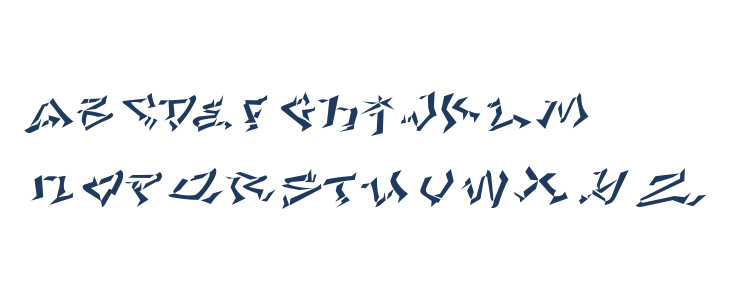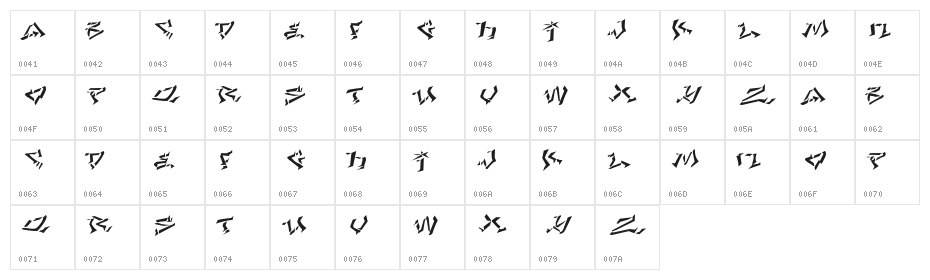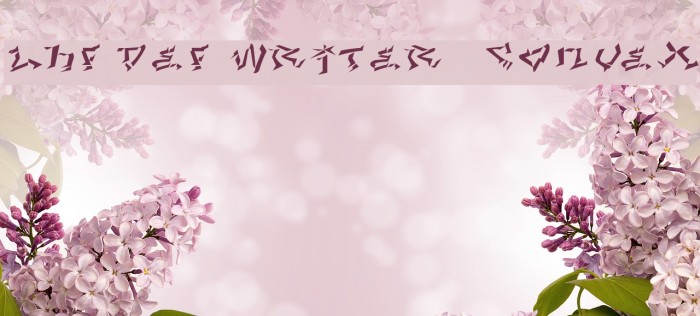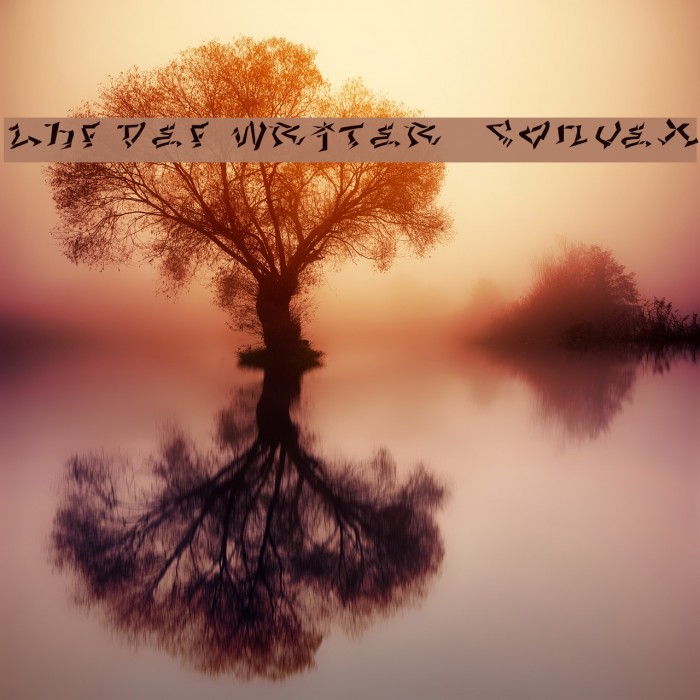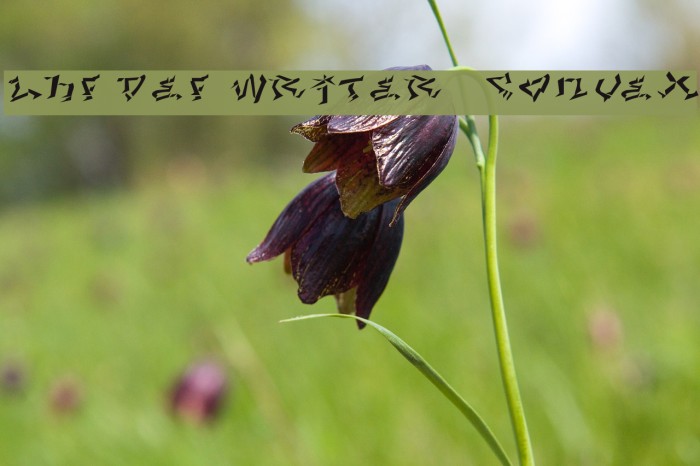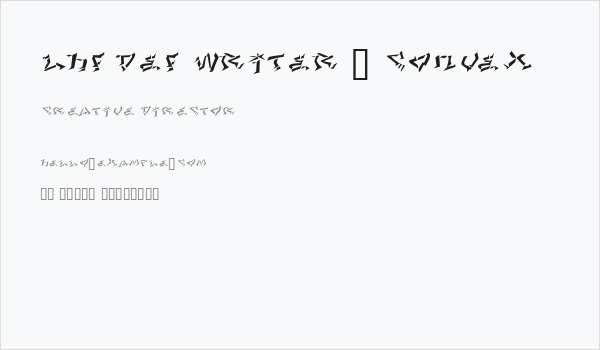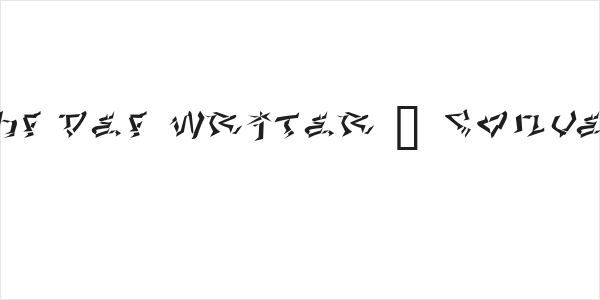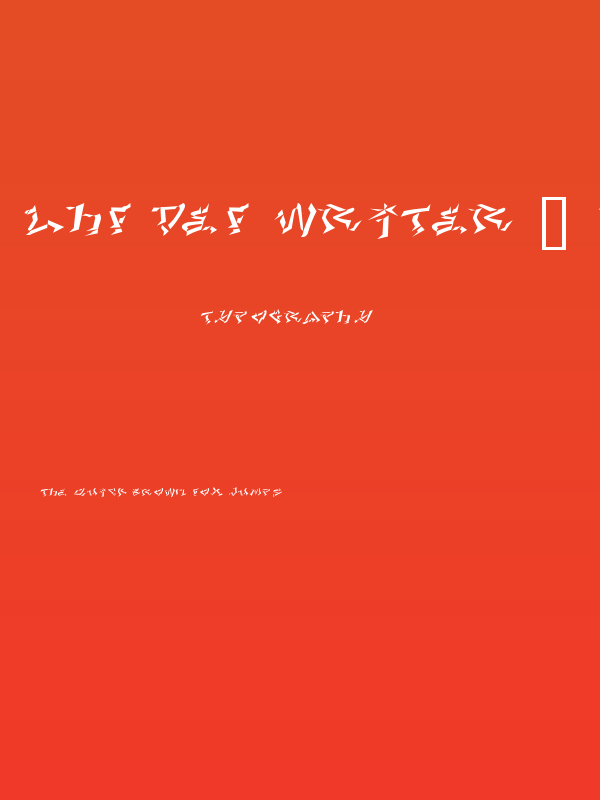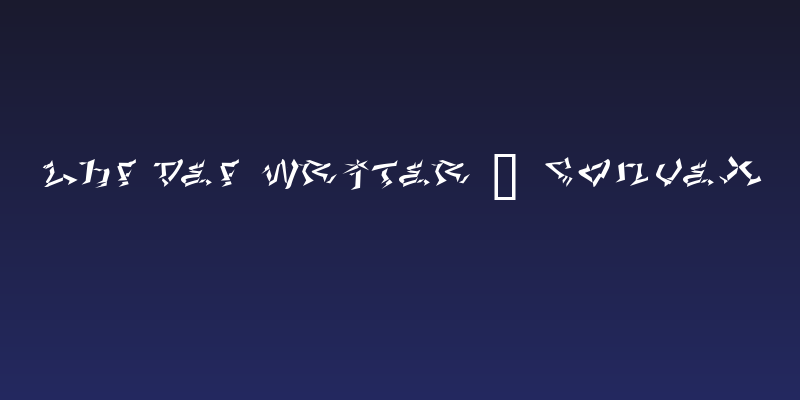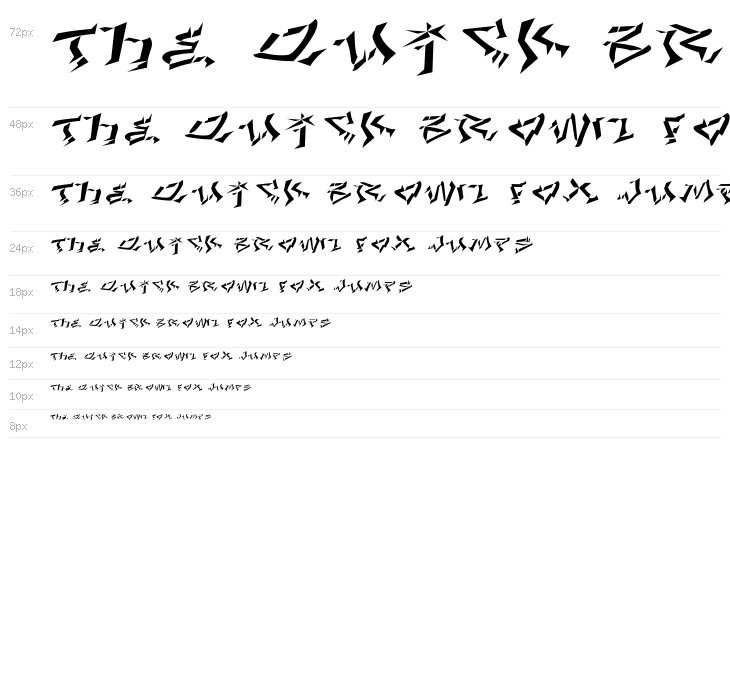
LHF Def Writer | CONVEX Font
LHF Def Writer | CONVEX Description
This font features a highly decorative and angular design, characterized by sharp edges and a bold, striking appearance. The letters are crafted with a jagged, almost shattered effect, giving it a dynamic and energetic feel. The uppercase and lowercase letters maintain a consistent style, with each character exhibiting unique cuts and angles that contribute to its overall edgy aesthetic. The font lacks traditional curves, opting instead for a more geometric and fragmented look. Its distinctive style makes it stand out, ideal for projects that require a bold statement.
Overall StyleModern, Decorative
Proposed ProjectsIdeal for album covers, posters, video game titles, and any project needing a bold, edgy aesthetic.